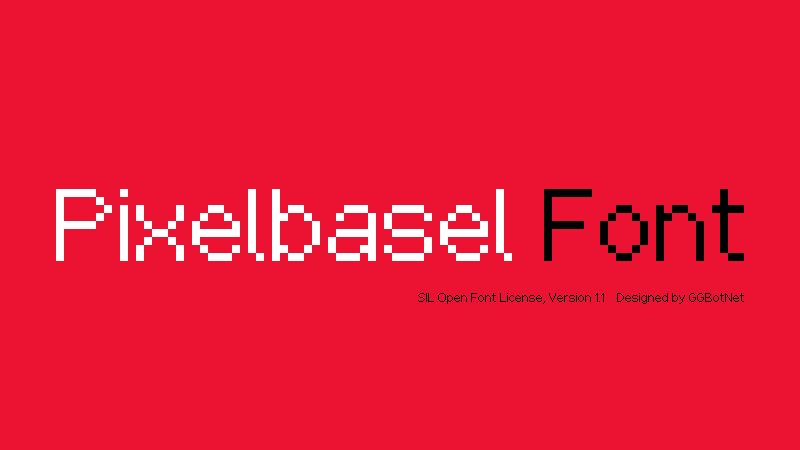
Pixelbasel font by GGBotNet is a free pixel bitmap font that brings a unique touch to any text in both print and digital mediums. Inspired by retro digital aesthetics, the design is tech-inspired and modern while twisty in its own way. Its inclusions are letters, numbers, and several unique symbols. The square forms, geometric nature, and pixelated overall look are what distinguish this font.
Pixelbasel can be used to make graphics from posters and flyers to logos, labels, and branding elements. The web is also no exception as the font can perfectly fit right in as a homepage call-for-action message, a landing text within an advertisement, or even a menu. Gamification gives it further application not only in newly-created games but in small animated clips and characters as well.